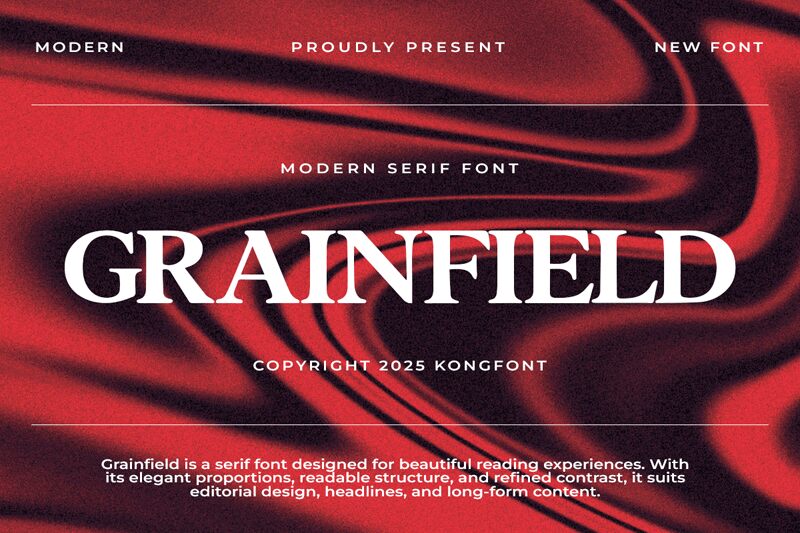
Grainfield font was designed to be one thing, elegant. Created by Kong Font, this free serif font combines modernity with classic influences to deliver the most sophisticated and refined designs. With its subtle contrasts, Grainfield is readable as a text and display font with all letters (including lowercase and uppercase options) well-balanced.
Designers can use the versatile Grainfield for branding and marketing presentations, or for logos. With such timeless styles, the font makes an impeccable option in magazines and newspapers. Social media pages and blogs can also be given that formal tone users hope for with texts typed in Grainfield.